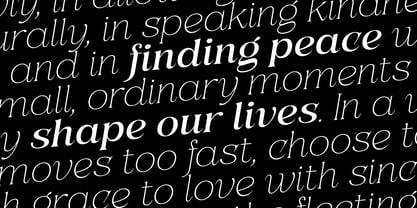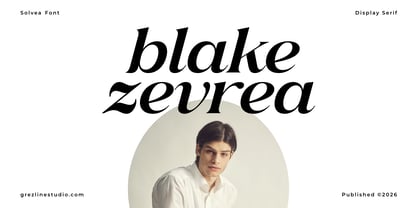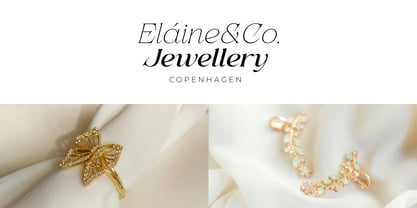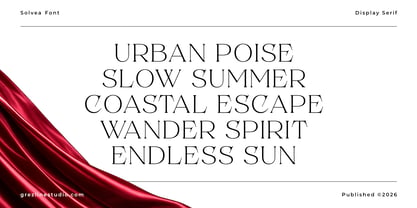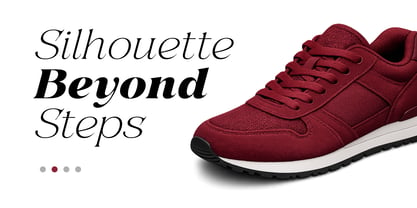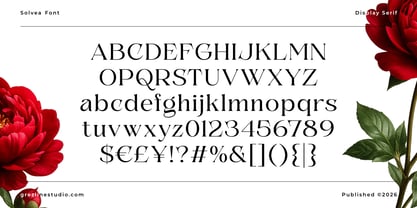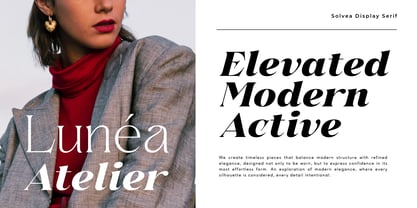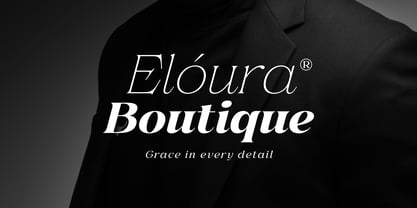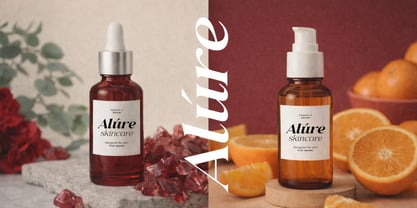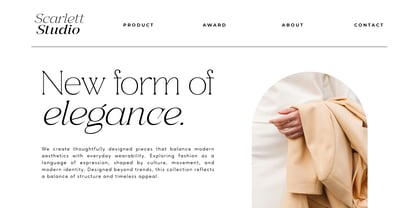
Solvea
The Solvea Font Family was designed by Akhmad Reza Fauzi and published by Grezline Studio. Solvea contains 18 styles and family package options. More about this family
Solvea Typeface is designed to adapt seamlessly across various creative directions — from luxury branding and product packaging to modern digital layouts and editorial compositions. Its balanced structure and elegant flow allow every composition to feel intentional, polished, and visually compelling.  Crafted with a refined high-contrast design, Solvea brings a distinctive presence while maintaining clarity and readability. Each letterform is carefully shaped to deliver both aesthetic appeal and functional versatility, making it suitable for headlines, logotypes, and sophisticated visual systems. Feature : – 18 Font Family – Multilingual Language – Works on PC & Mac – Simple installations – Accessible in the Adobe Illustrator, Adobe Photoshop, Adobe InDesign, even works on Microsoft Word. Thank you! Grezline Studio – Akhmad Reza Fauzi